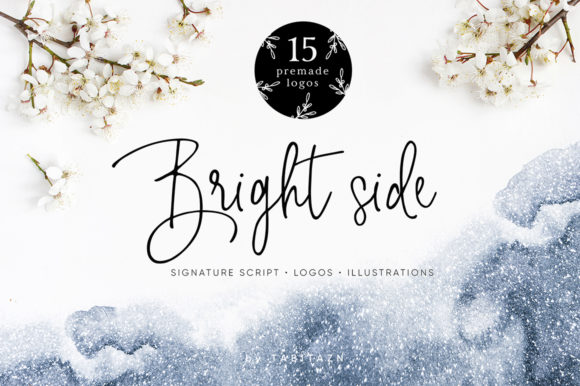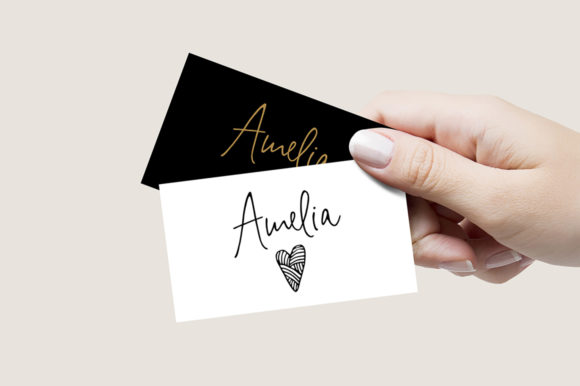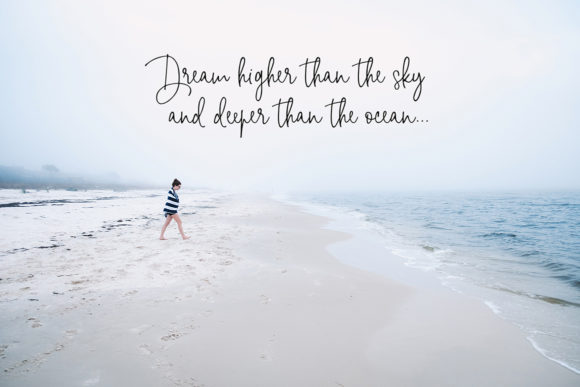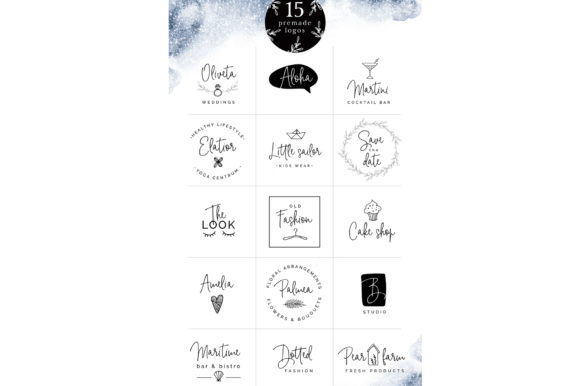
The Bright Side is a modern monoline signature script. It’s perfect for adding an elegant look to your logos, greeting cards, invitations, blogs, and much more!
Included is a bonus are 36 floral and feminine doodles – just combine the graphic objects that you like with your text – the possibilities and variations are endless. Or you can use the fully editable 15 pre-made logo templates.